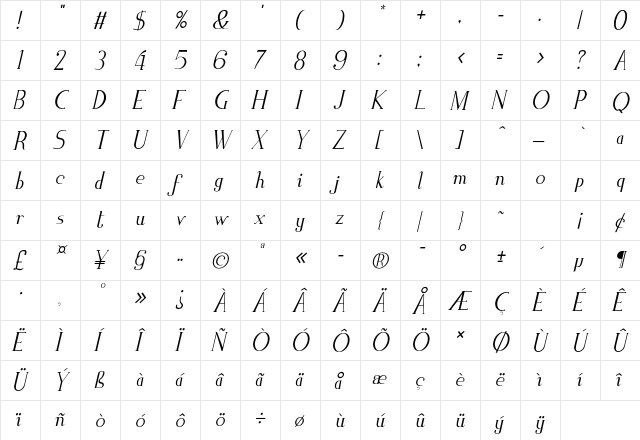
Zorus Serif Italic
Design Context for Zorus Serif Typeface
Zorus Serif brings classic typographic sensibility to the table — its serifs and measured letterforms reflect centuries of print heritage. Its italic angle brings a sense of urgency and motion to the letterforms.
Pro Tip: Use Zorus Serif for editorial body copy and considered headline work. Pair with a neutral sans for UI elements or captions to create a classic hierarchy.